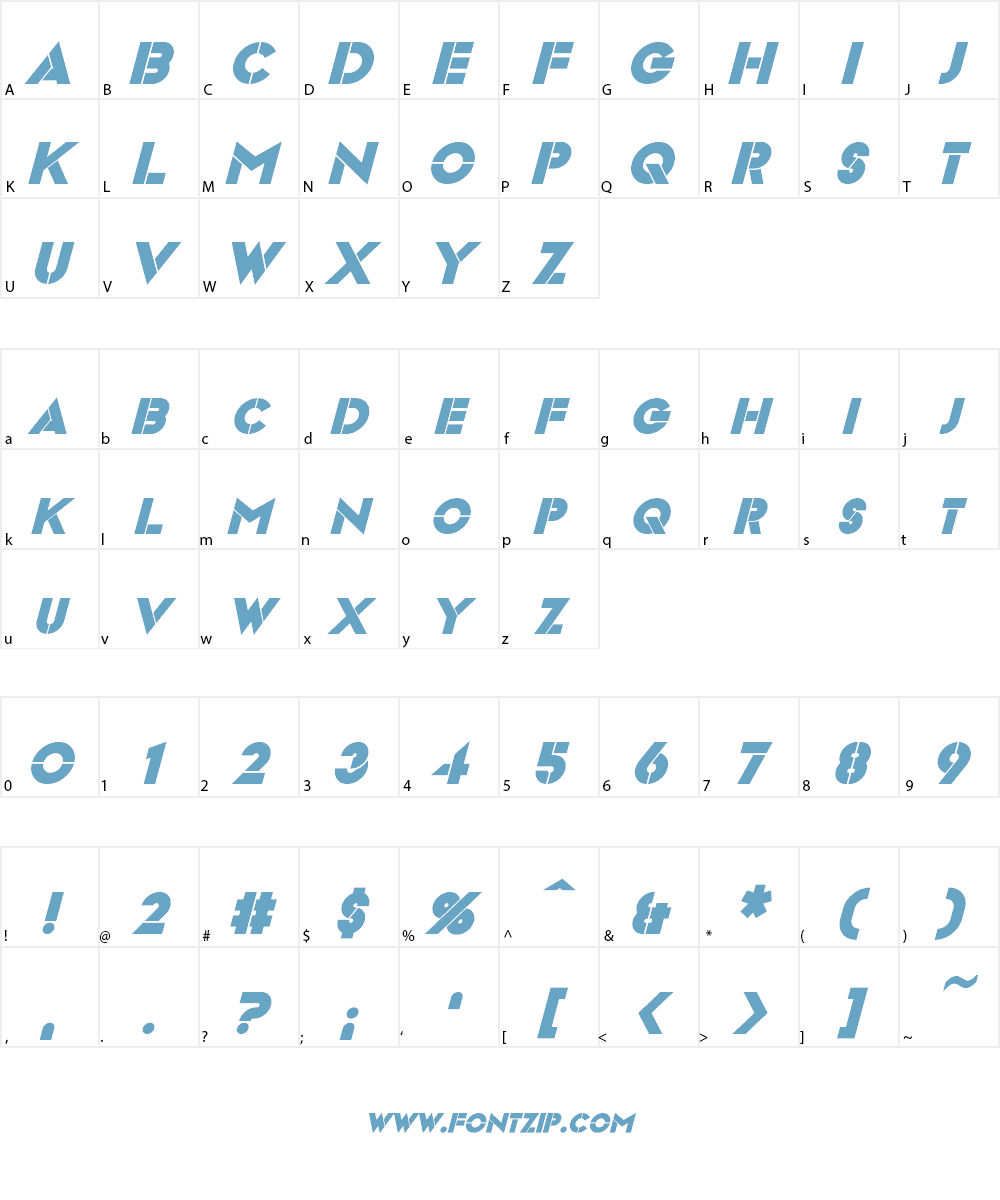
Videopac is a stylized stencil-based typeface given upper-caps and a slight 1970s-era flare. The face is based on the Odyssey 2′s “videopac” cartridge titles, such as KC Munchkin. Includes full alphanumerics, extended punctuation, Euro. Includes regular, bold, italic and bold-italic weights.